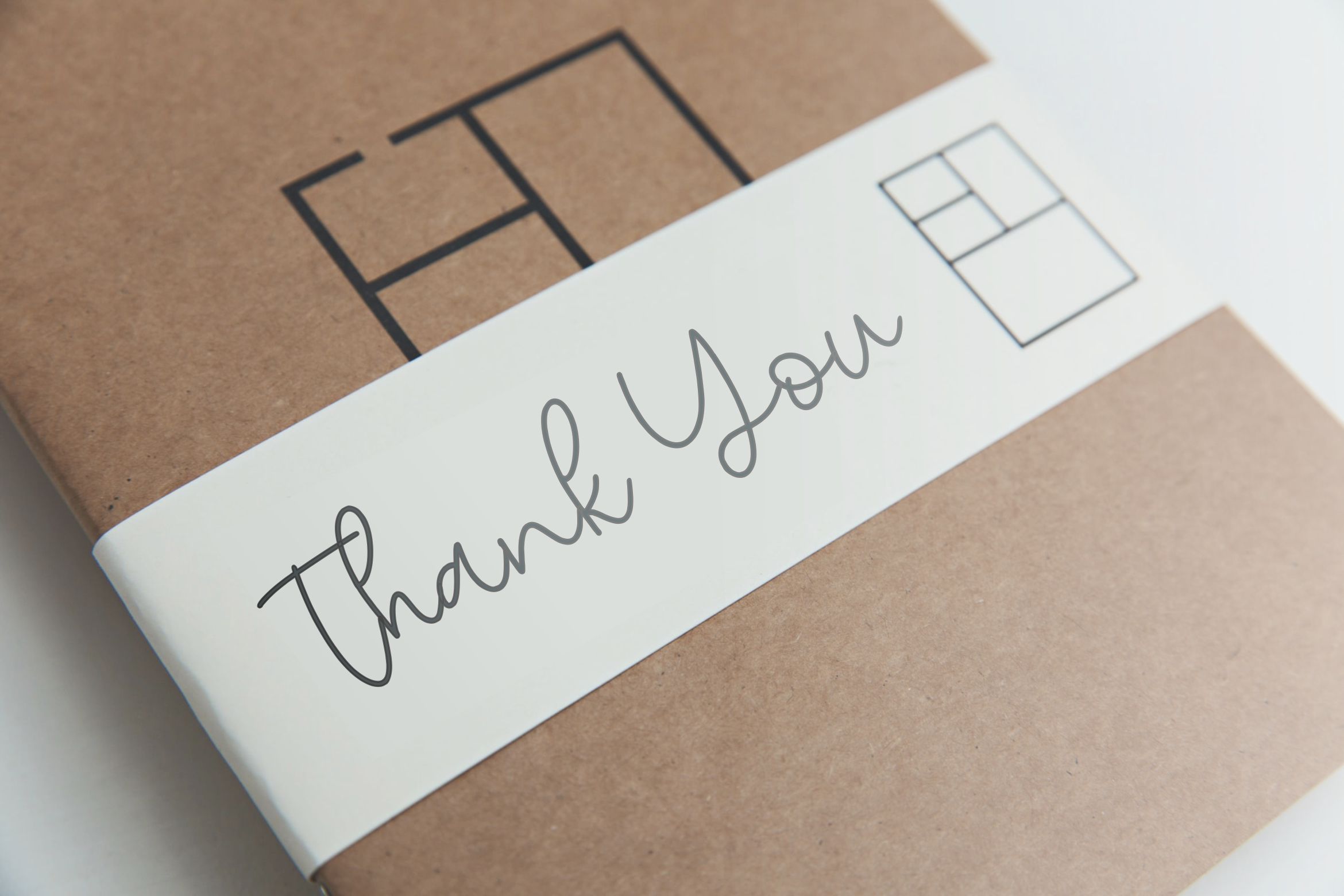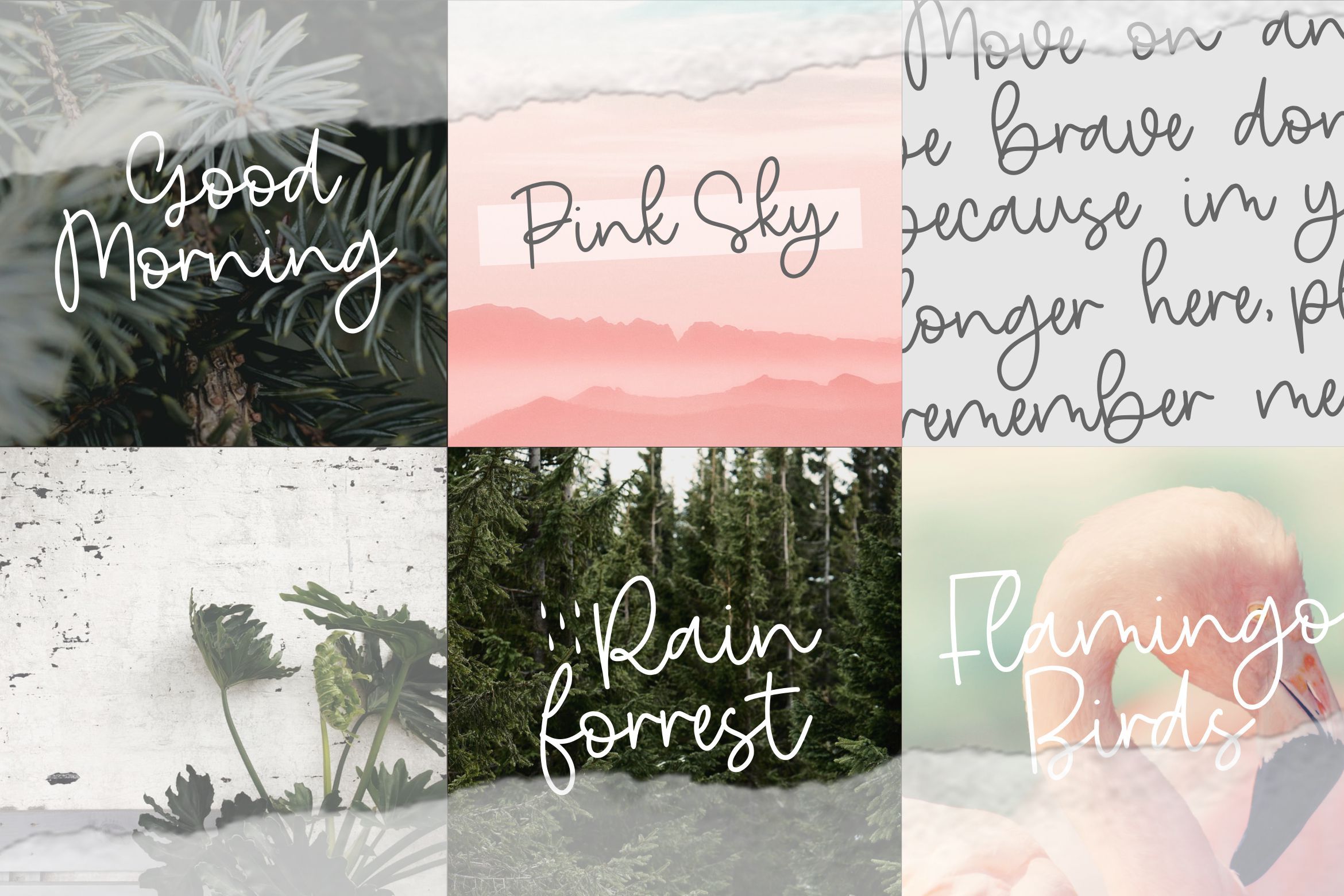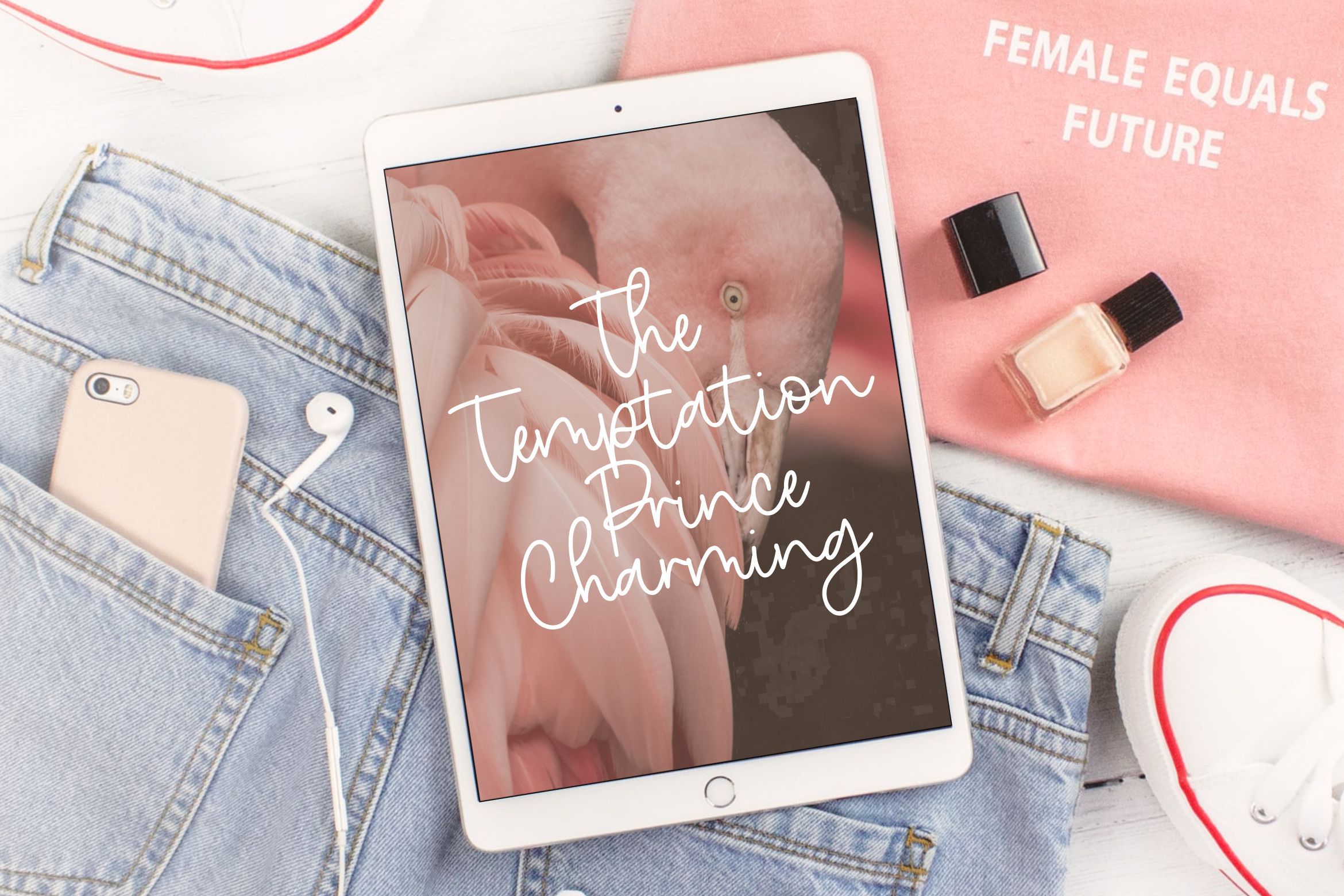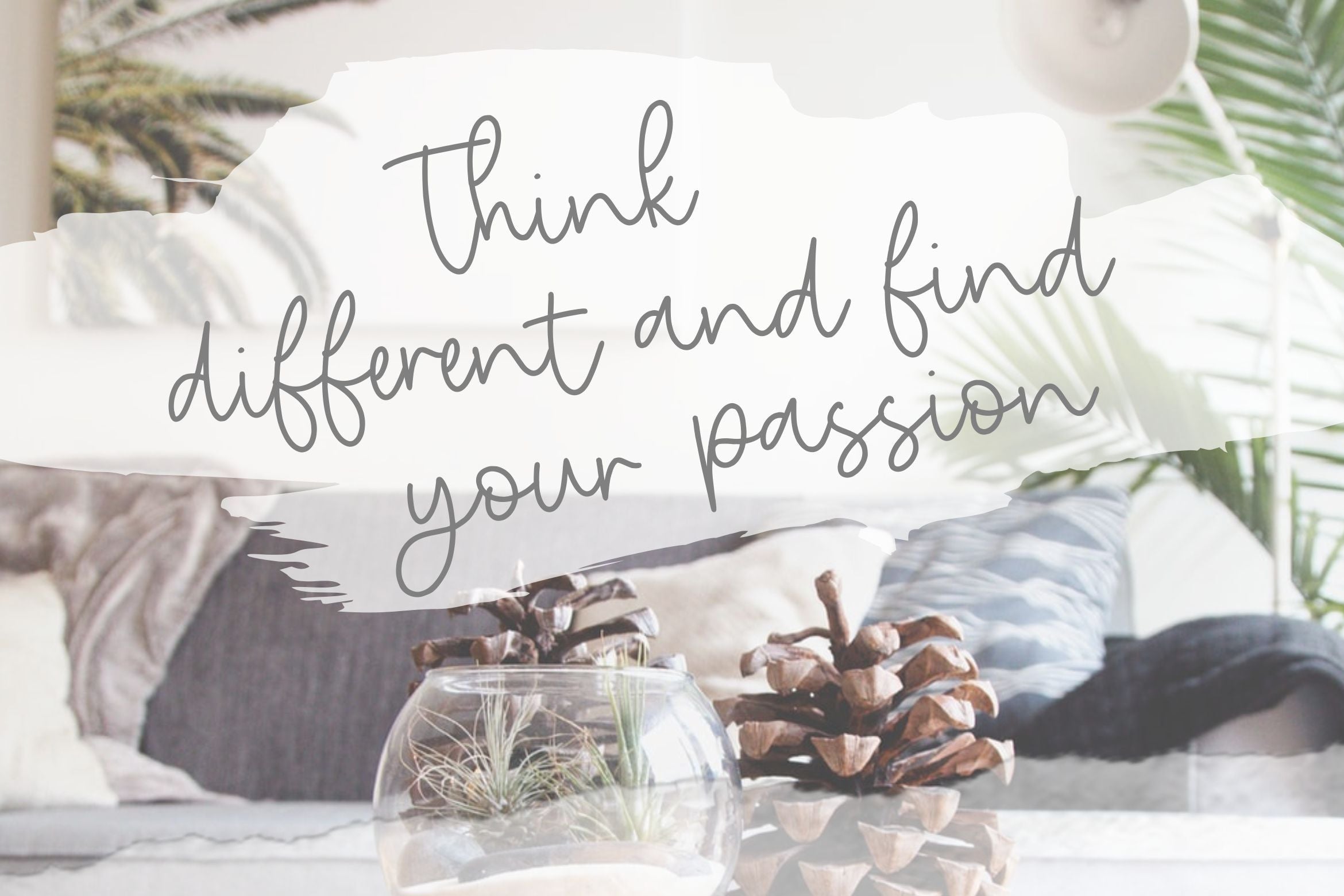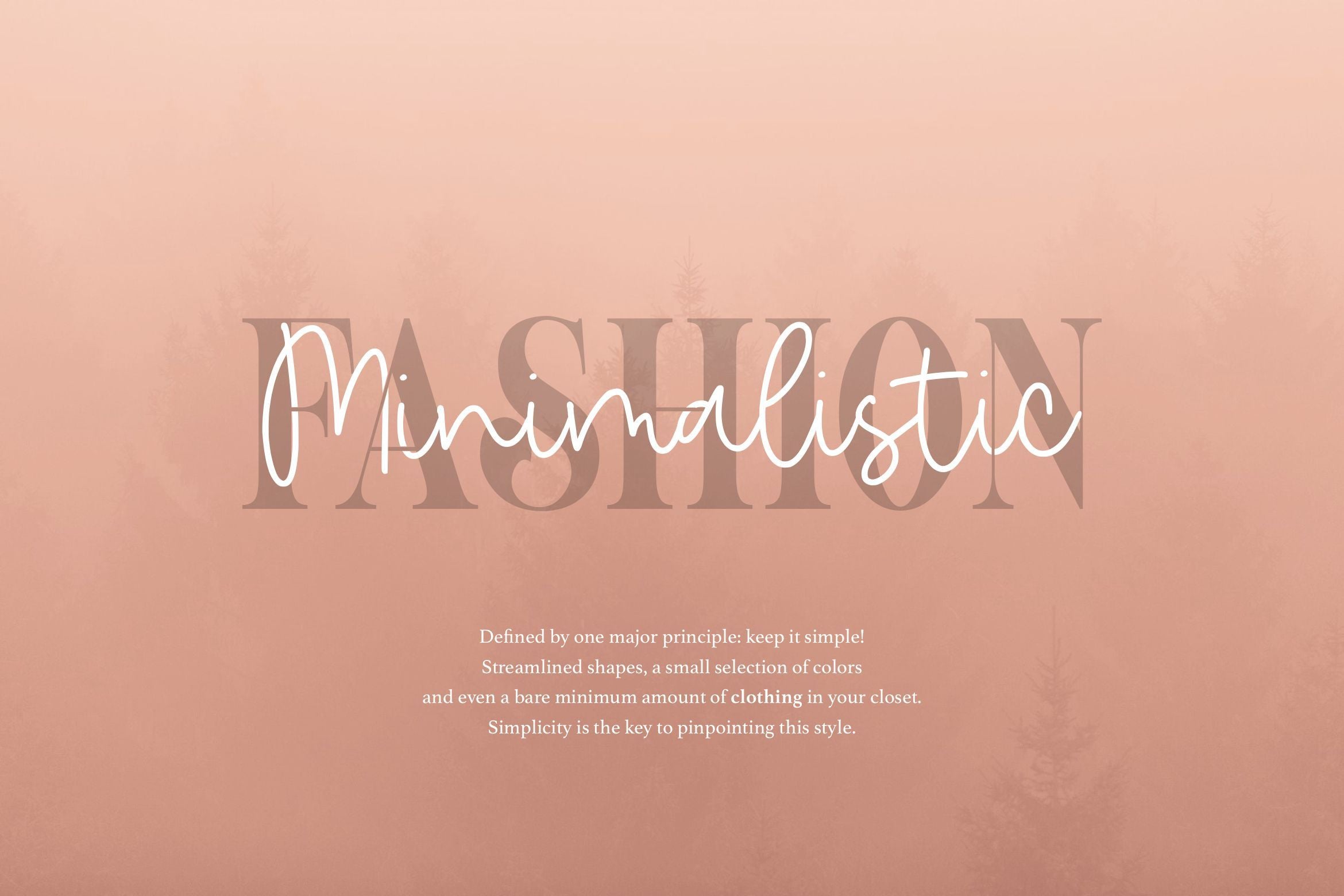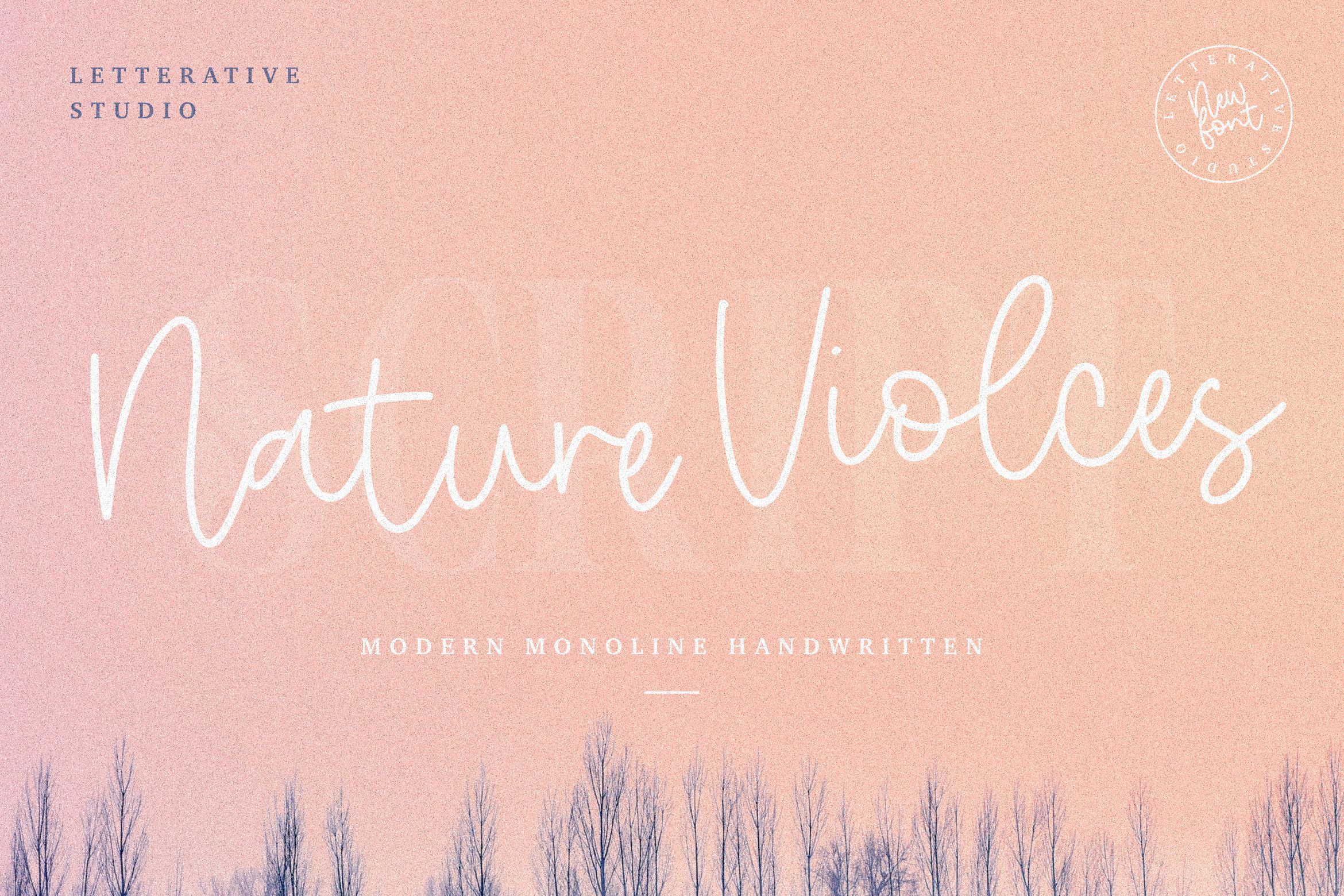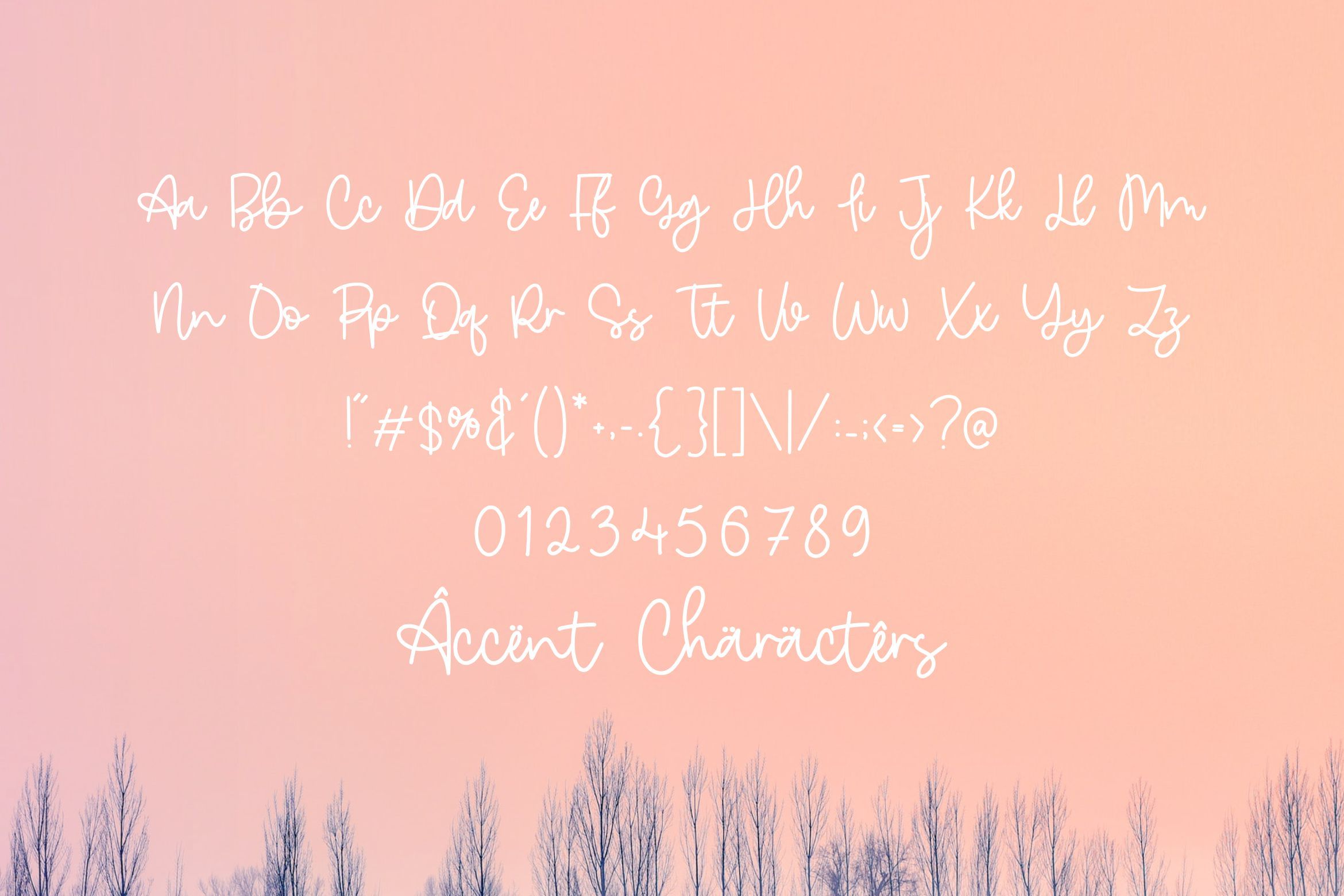
Nature Violces Modern Monoline Handwritten Font
About Nature Violces Modern Monoline Handwritten Font
Introducing by Letterative Studio : Nature Violces Font Nature Violces is a Modern Monoline Handwritten Font Nature Violces is a delicate, elegant and flowing handwritten font. It has beautiful and well balanced characters and as a result, it matches a wide pool of designs. Add it to your most creative ideas and notice how it makes them come alive! This font includes : TTF and OTF Nature Violces also multilingual support Enjoy the font! Feel free to comment or feedback Send me PM or email Thank you!